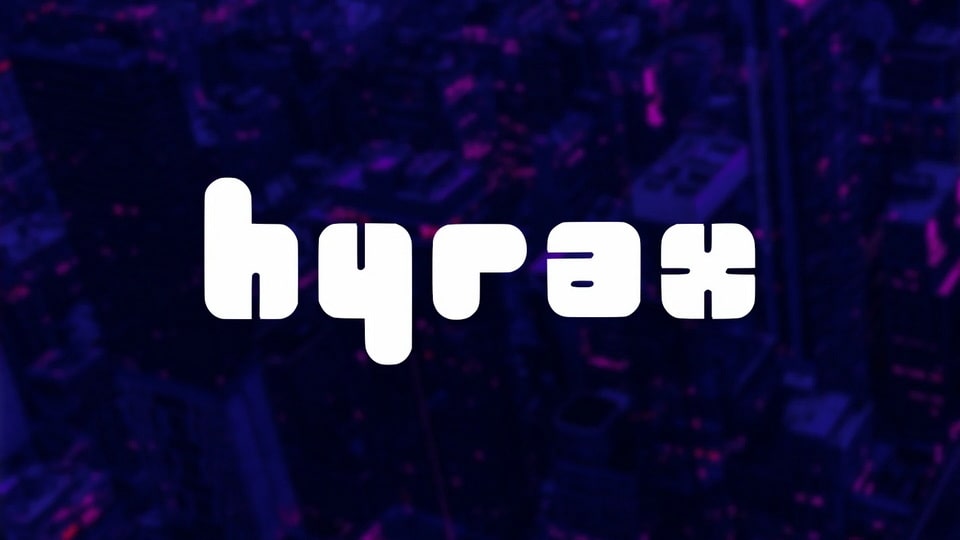
Download Hyrax font, a bold, geometric display typeface featuring chunky letterforms with rounded edges and a playful, retro-futuristic aesthetic.
Designer: João Ares